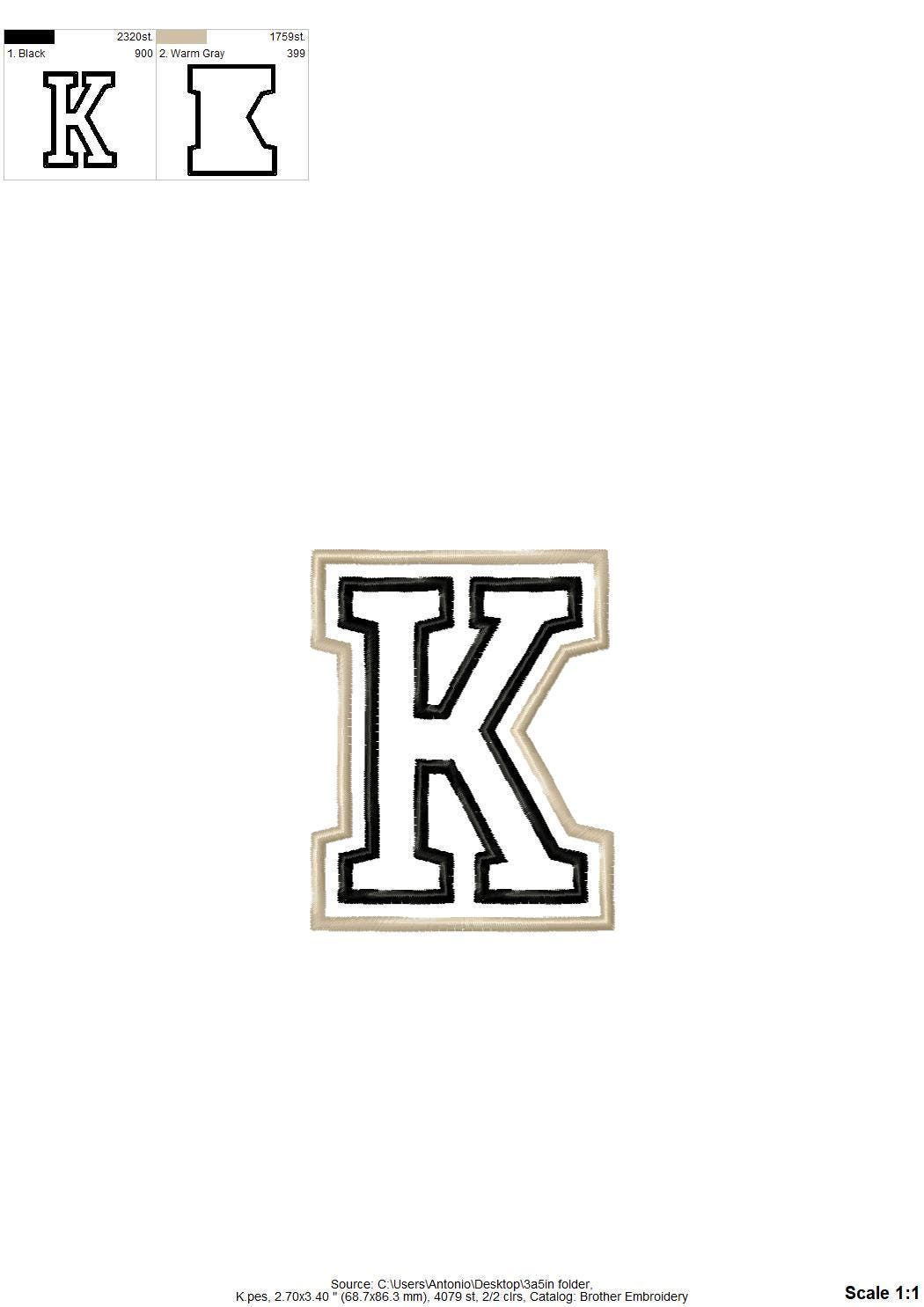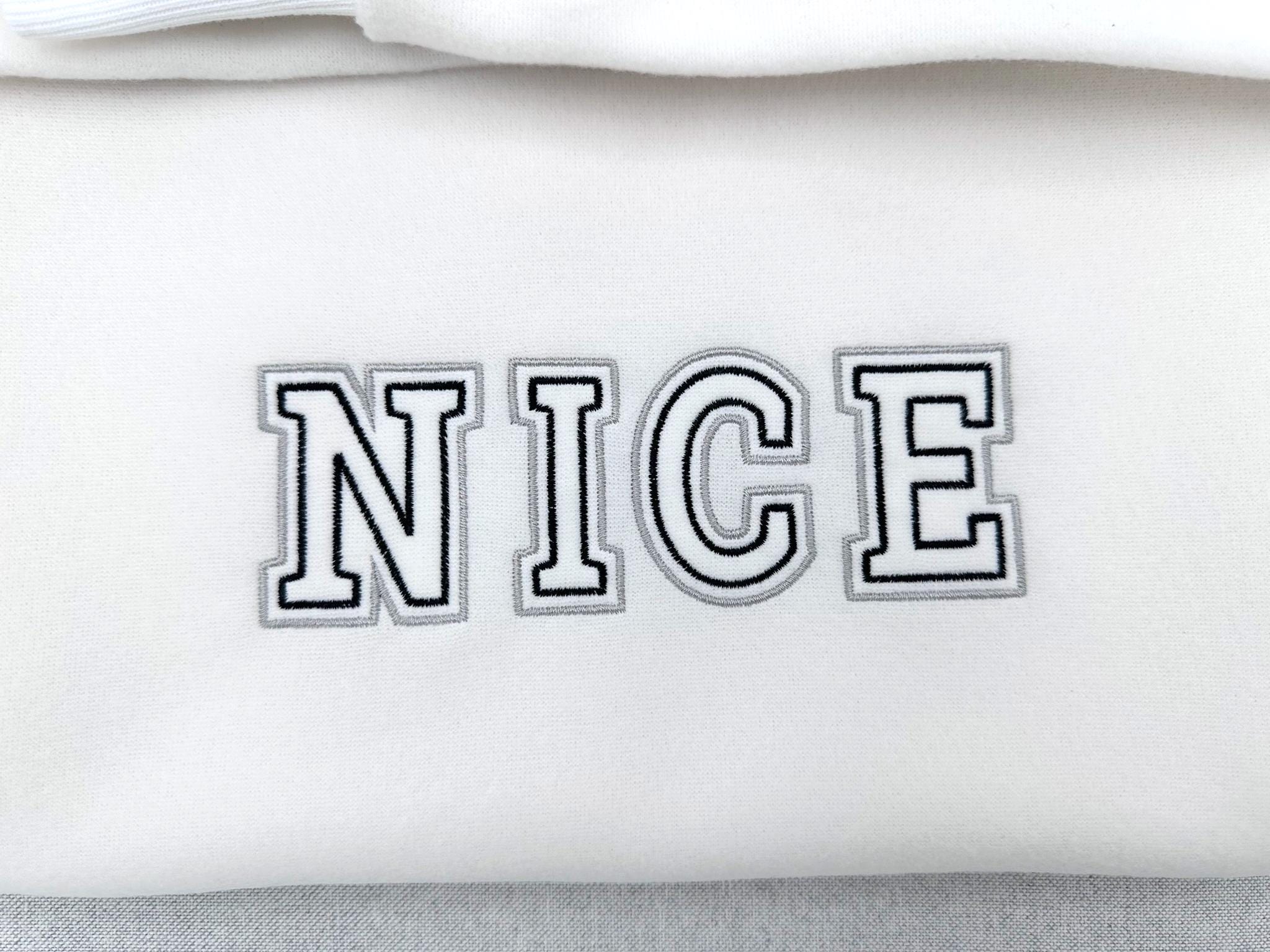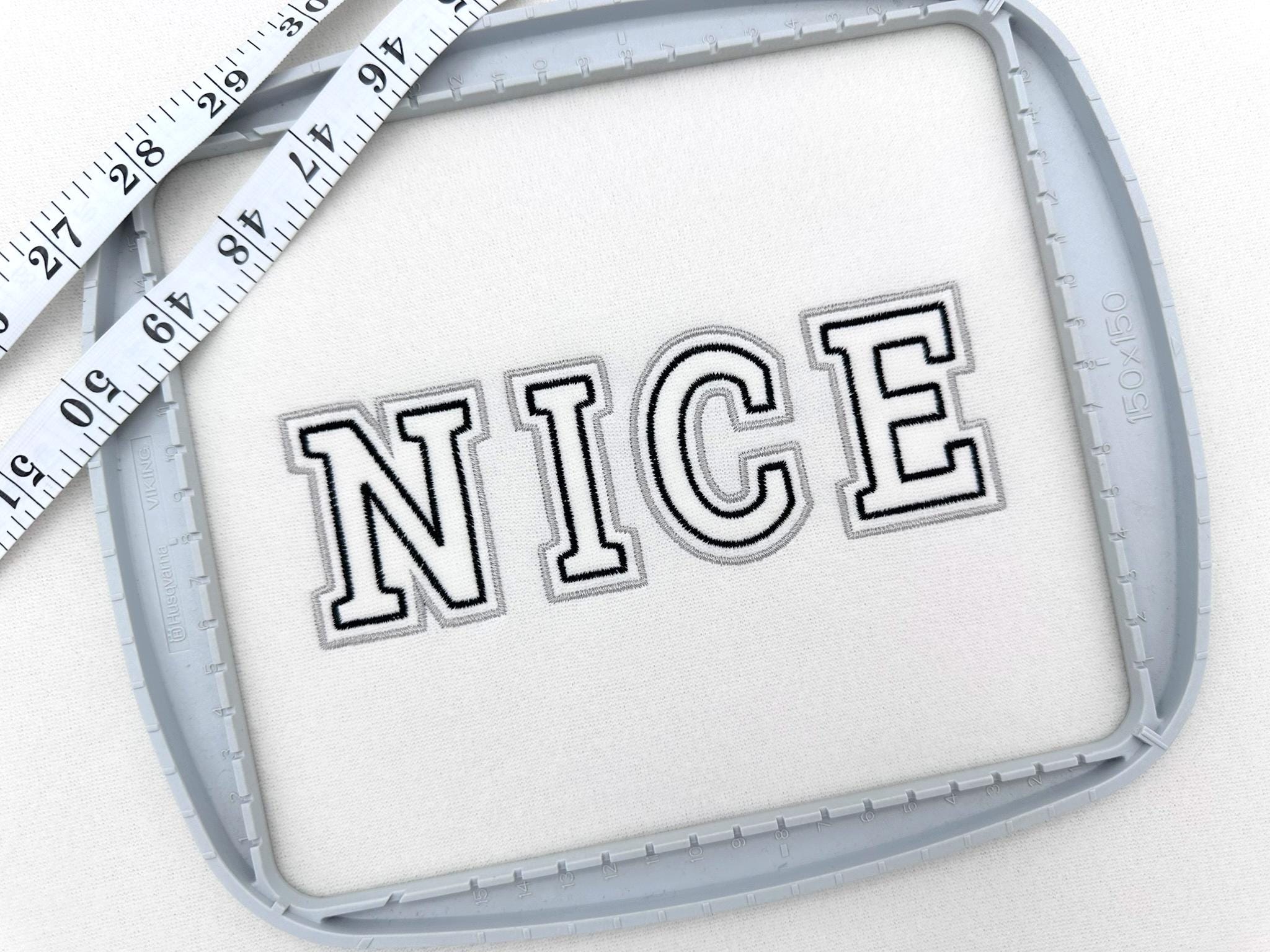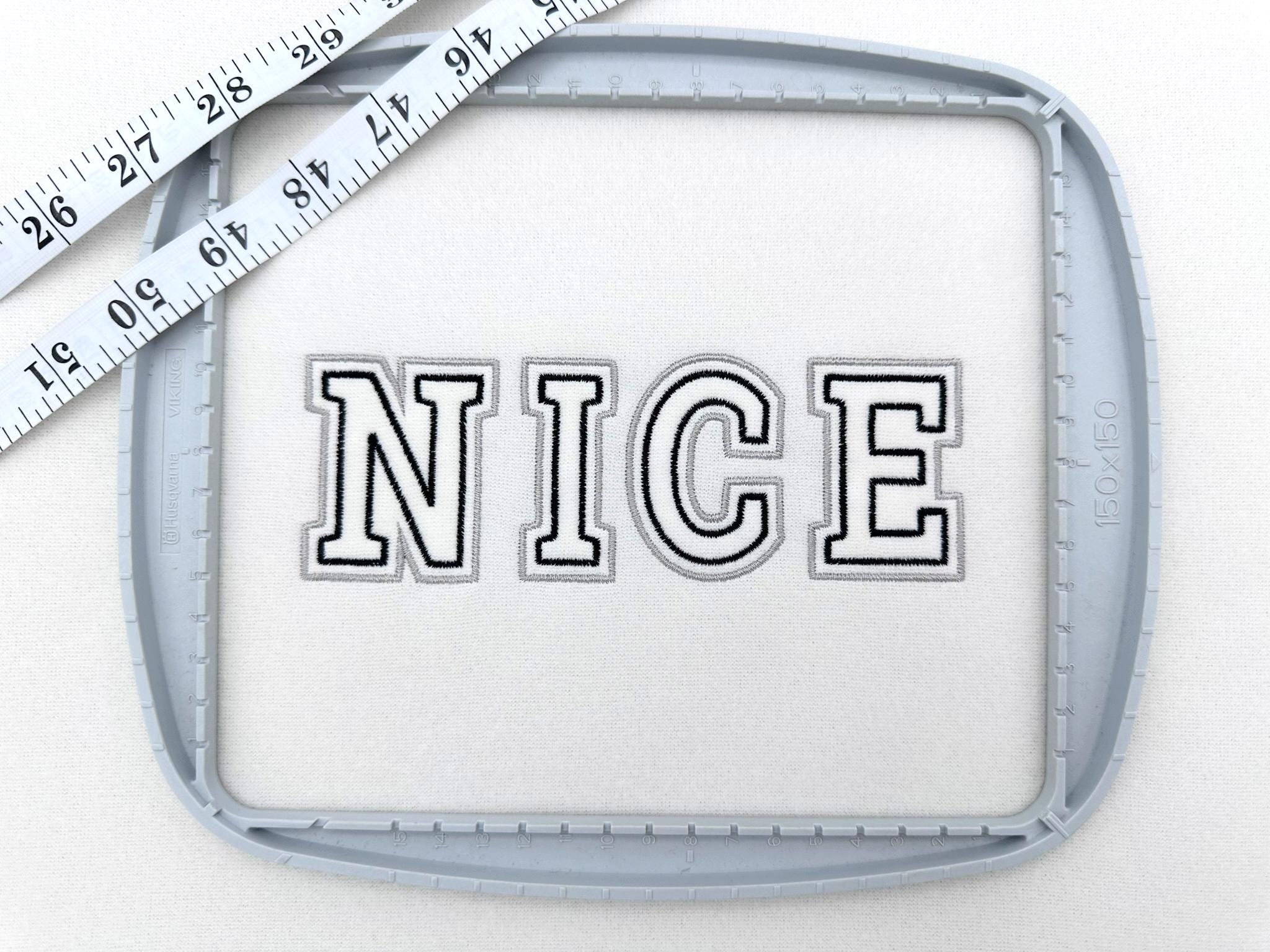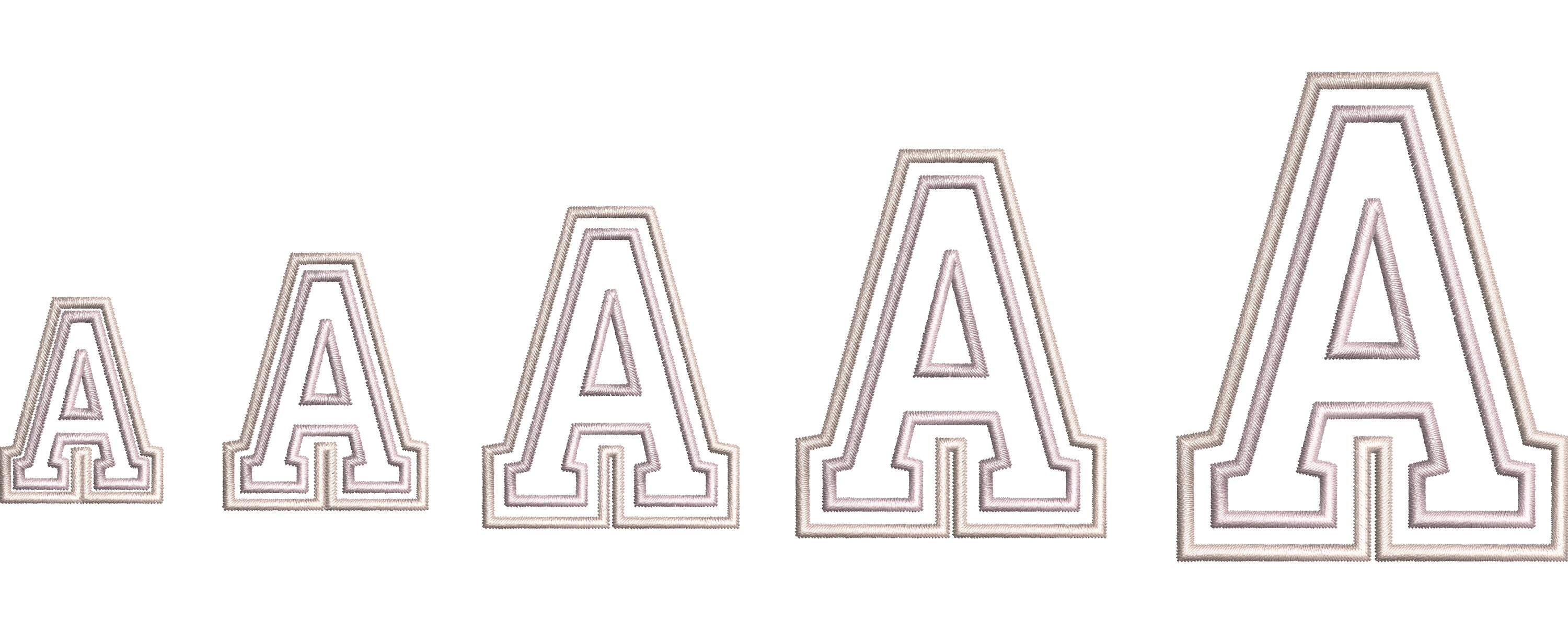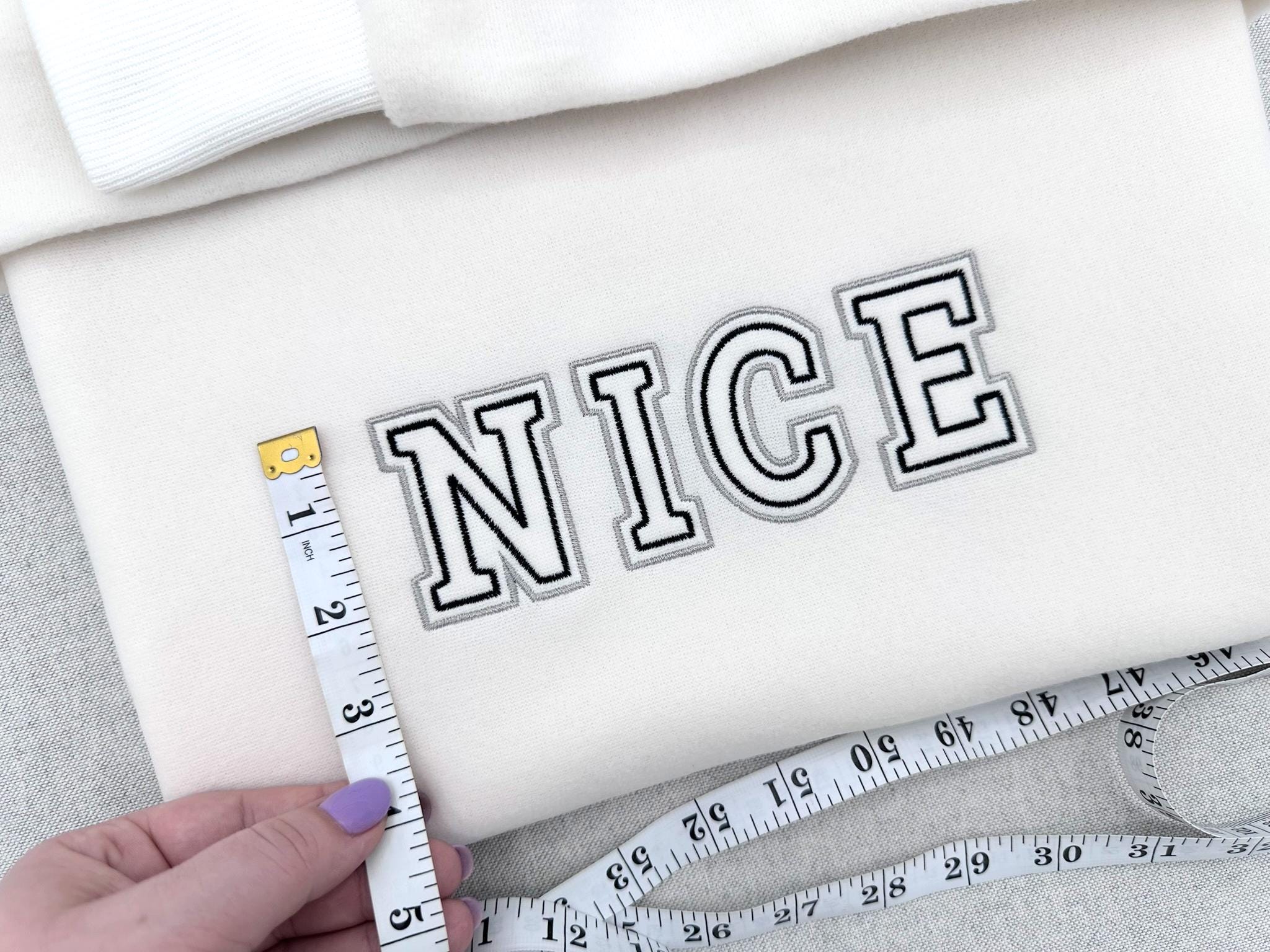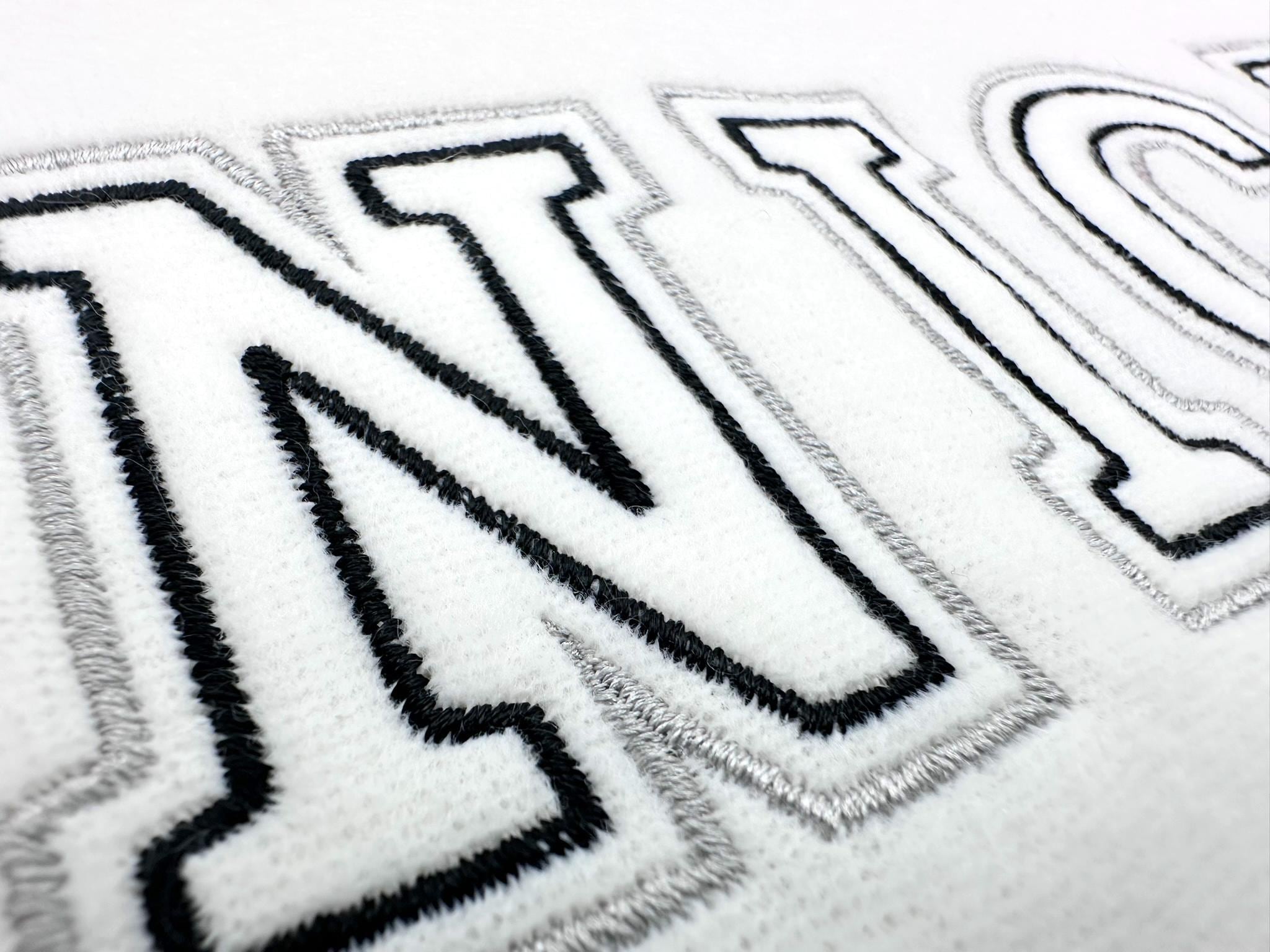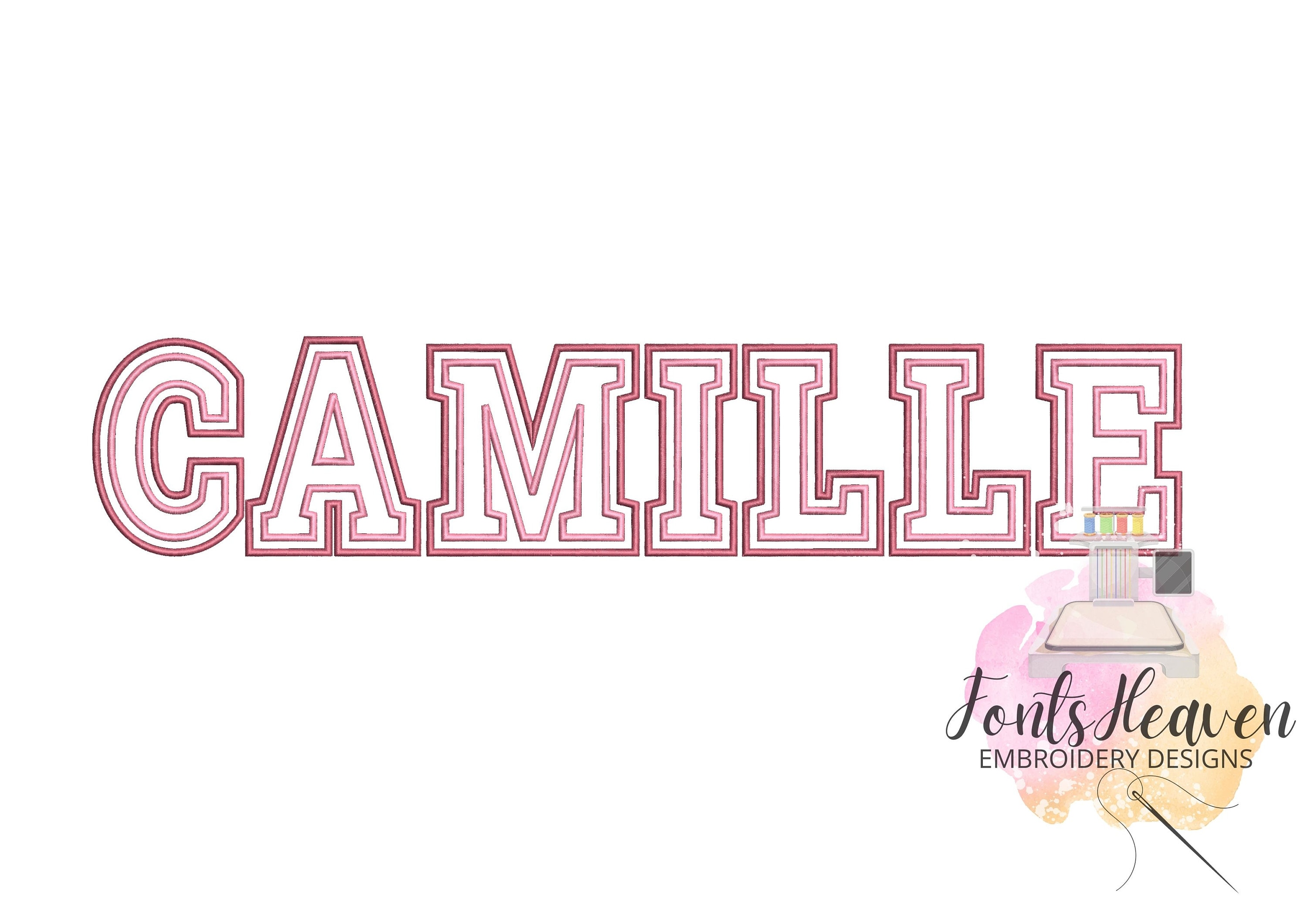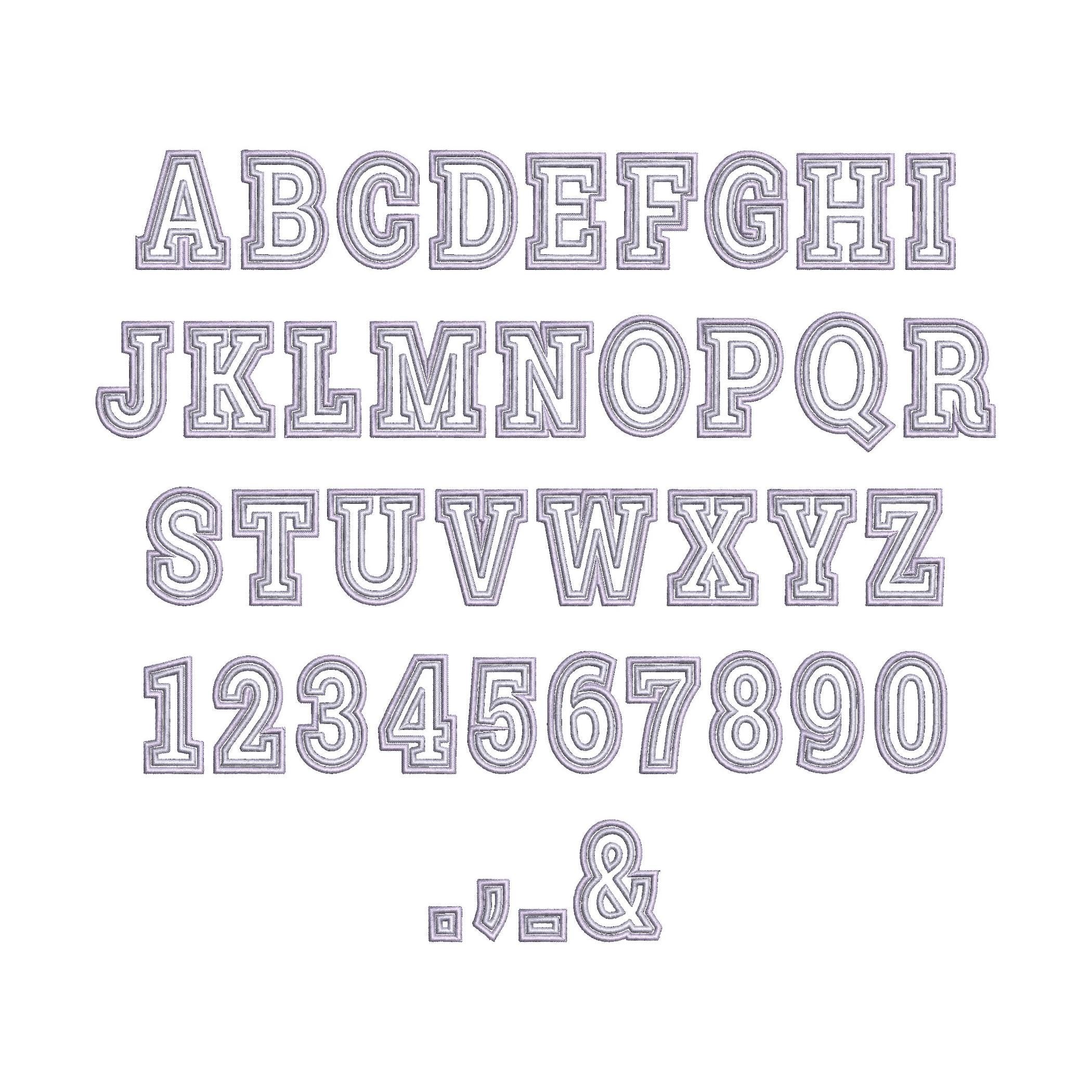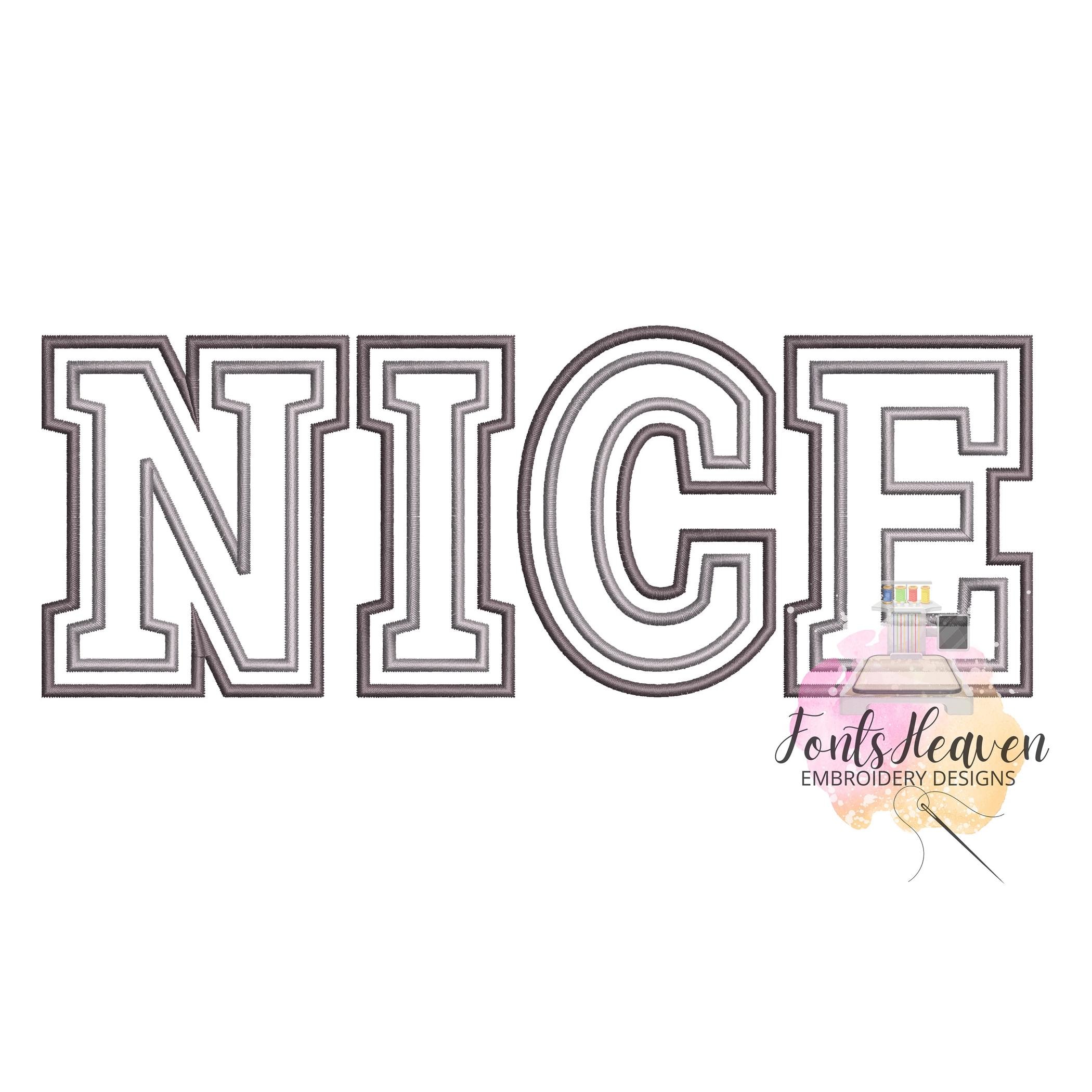
Nice Alpha Sport Font two outlines double outline Alphabet machine embroidery designs satin stitch line letters sizes 1.5 up to 5.5 inch BX included
This is a transparent font, with only two outlines to get quick results and a modern look.
Whole alphabet uppercase letters, numbers, and punctuation.